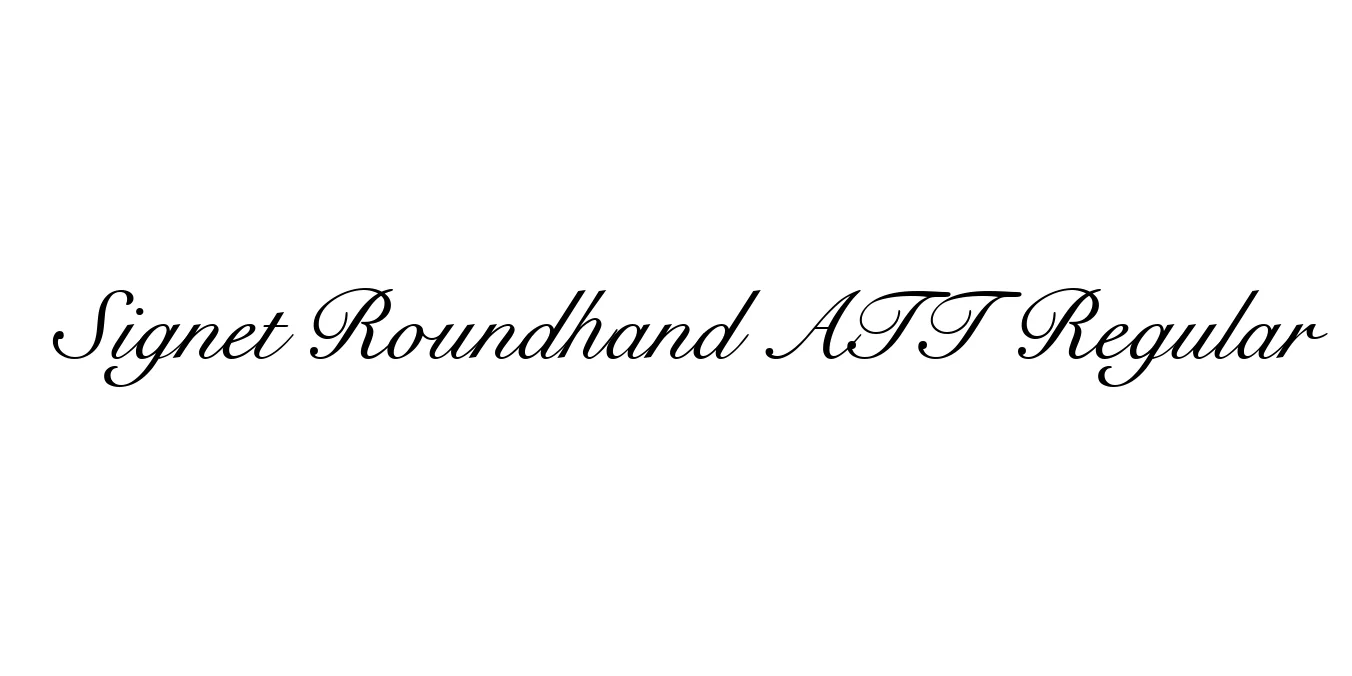
Signet Roundhand ATT Regular
Designed by Morris Fuller Benton (Original Design Inspiration)
Signet Roundhand ATT Regular is a quintessential example of formal script typography, characterized by its elegant, flowing strokes and high contrast between thick and thin lines. Originally inspired by the classic 18th-century roundhand calligraphic styles, this typeface exudes a profound sense of sophistication, tradition, and grace. The ATT digital version preserves the rhythmic balance and delicate flourishes that have made this style a mainstay in high-end design for decades.
The font's design features intricate connecting ligatures and gracefully curved terminals that mimic the fluid movement of a master calligrapher's pen. While it is primarily utilized for decorative and display purposes, its meticulous spacing ensures a level of legibility that is perfect for wedding stationery, official certificates, and luxury editorial layouts. Its timeless aesthetic remains a top choice for designers seeking to convey prestige and historical weight.
Signet Roundhand ATT Regular Best Uses
Creating timeless and traditional ceremony invites and programs.
Providing a sense of prestige and authenticity to official diplomas and awards.
Establishing a sophisticated identity for luxury boutiques and upscale services.
Adding decorative headers and pull-quotes in high-end lifestyle magazines.